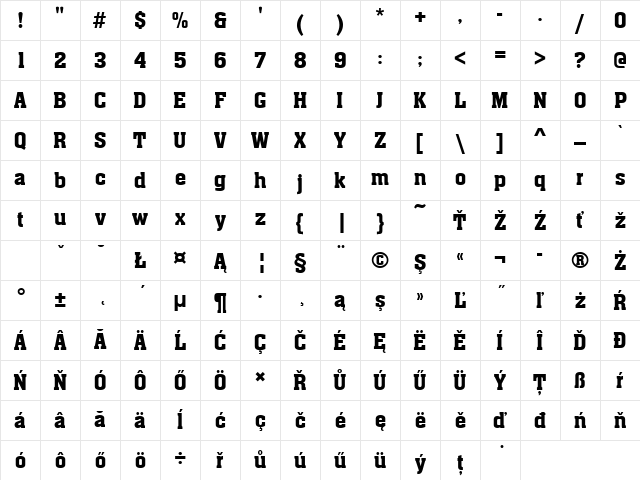
AachenDEEMed Regular Free Font
AachenDEEMed Regular
Complete AachenDEEMed Regular glyph index. Displaying only characters natively supported by AachenDEEMed Regular font.
Design Context for AachenDEEMed
AachenDEEMed is a composed and adaptable typeface that performs quietly and consistently across a wide range of design contexts.